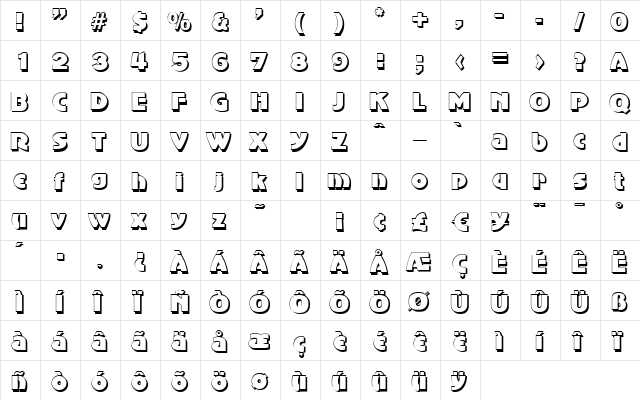
JessyBeckerShadow Regular
Design Context for JessyBeckerShadow Typeface
JessyBeckerShadow brings ornamental detail and strong personality to headlines and identities, where visual impact matters more than quiet functionality.
Font Pairing: Pair with a clean neutral sans-serif for body copy to let JessyBeckerShadow's character lead without overwhelming the composition.
Pro Tip: Use JessyBeckerShadow exclusively at display sizes — it was designed to be seen, not read at length. Let a neutral companion handle body copy.